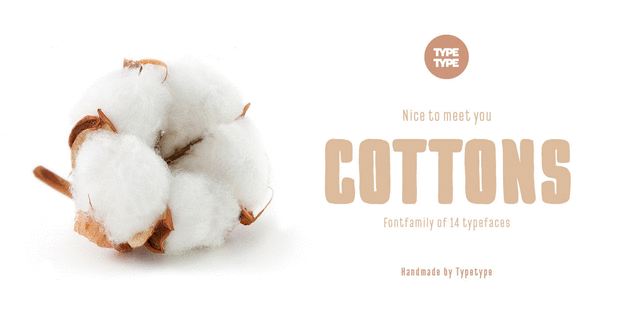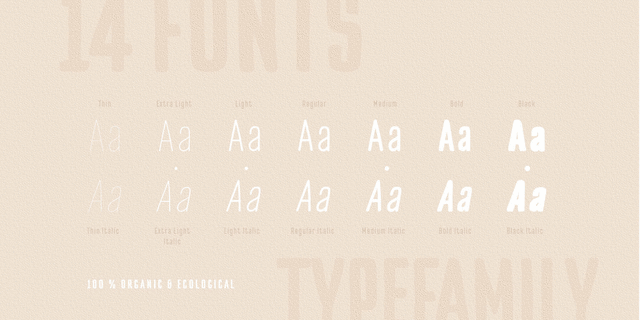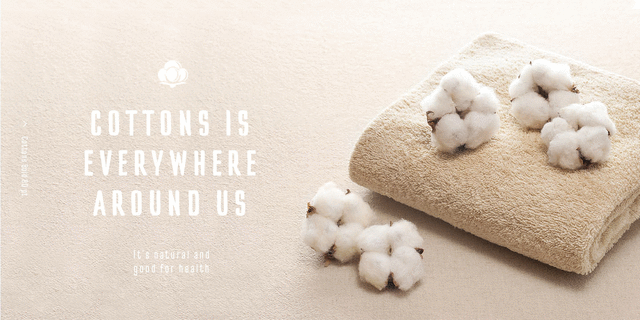
TT Cottons (14 fonts)
About TT Cottons is your ideal design helper. Cottons is filled with inspiration and coziness that add ease and homey feeling to any surface (any environment). We’ve created a fontfamily that directly reminds of the spring air feeling and hand-made style. Each separate typeface is created with a real instrument. For instance, the black typeface was painted with a real brush, and the thin one was created with a rapidograph. Next we’ve digitized the fonts. Thanks to the 7 weights you can easily choose your own Cottons that will perfectly fit into your design layout, and the condensed proportions let you fit a large text array into a small text field. The typeface was designed by Ivan Gladkikh in TypeType studio in 2016.
Associations for font family TT CottonsTypeface personality and character:
natural, economical, modern, tall, fashionable, static, orderly, green, eco-friendly, slim, thin, calm, delicate, clean, easy, intimate, laconic, air, transparent, fragile, weightless, high-quality, rectangular, urban, peaceful, home, cozy, manual, fresh, man-made, pleasant, comfortable, spring, wire, organic, friendly, simple, confidence, stable, craft brewed, nice, alive, lamp, reliable, domestic, warm, Soft, cotton, important, notable, loud, convincing, self-assured, summer, delicious, close-fitting, heavy, dense, family
hygiene, cosmetics, purity, diet, ASMR, graphics, illustration, morning, health, perfumery, recreation, breakfast, interior, Spring, Hygge, Instagram, house, dawn, retail, cafe, handmade, sky, textile, clothes, store, towel, pajamas, wadding, food, show, TV, bedroom, family, furniture, cinema, bakery, pillow, juice, linens, blanket, toy Typeface associated with age: